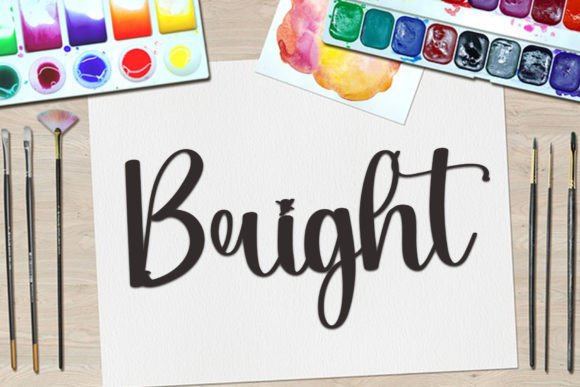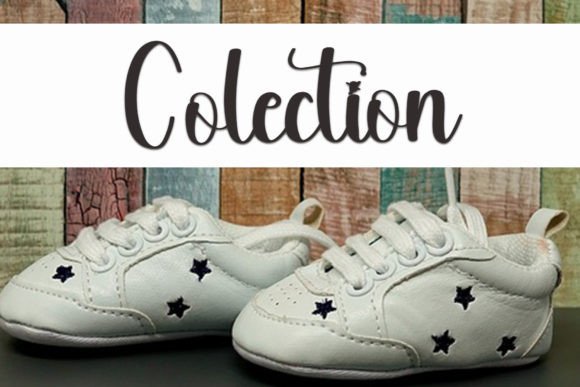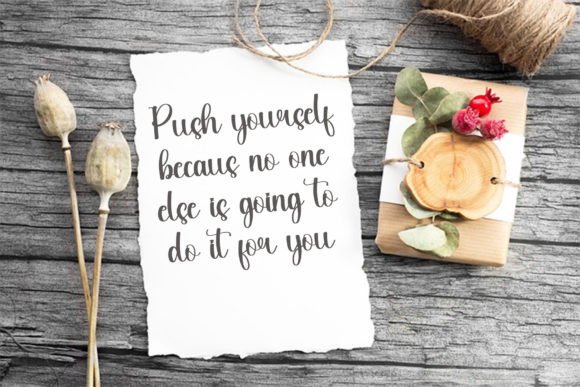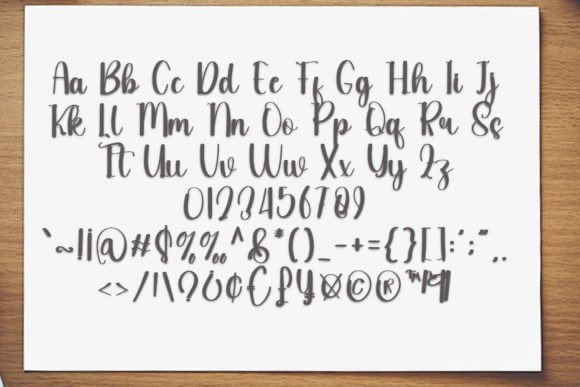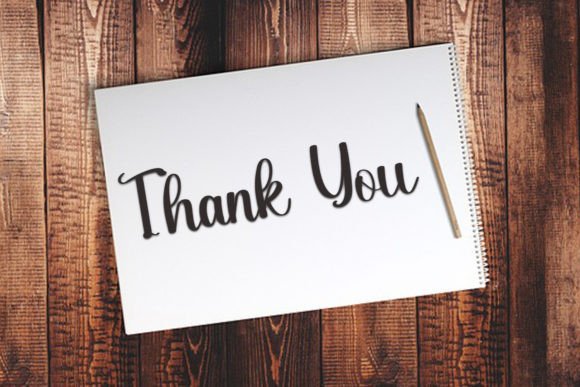
Discover the Elegance of Doubling Font: A Timeless Handwritten Style
Are you on the hunt for a font that adds a touch of elegance and sophistication to your designs? Look no further than the Doubling Font, a beautiful handwritten font that is sure to capture your heart. With its incredibly distinct and timeless style, Doubling is the perfect choice for designers and crafters looking to create spectacular designs that stand out from the crowd.
What is Doubling Font?
Doubling Font is a neat and beautiful handwritten font that is described by an elegant touch, making it perfect for your favorite projects. Its unique and classic style is sure to add a touch of sophistication to any design, whether you’re working on a logo, branding materials, or a craft project. With Doubling Font, you can create stunning designs that exude elegance and refinement.
Key Features of Doubling Font
So, what makes Doubling Font so special? Here are just a few of its key features:
- Elegant Touch: Doubling Font has an elegant touch that sets it apart from other handwritten fonts. Its smooth and flowing lines make it perfect for designs that require a touch of sophistication.
- Timeless Style: Unlike other fonts that may go out of style quickly, Doubling Font has a timeless style that will remain relevant for years to come. Its classic design ensures that your projects will look great now and in the future.
- Distinctive: Doubling Font has an incredibly distinct style that sets it apart from other fonts. Its unique design makes it perfect for designers and crafters looking to create designs that stand out from the crowd.
- Versatile: Doubling Font is a versatile font that can be used for a wide range of projects, from logos and branding materials to craft projects and more.
Why Choose Doubling Font?
So, why should you choose Doubling Font for your next project? Here are just a few reasons:
- Adds Elegance: Doubling Font adds a touch of elegance and sophistication to any design, making it perfect for projects that require a high-end look.
- Easy to Read: Despite its elegant style, Doubling Font is easy to read, making it perfect for designs that require a clear and concise message.
- Unique: Doubling Font is a unique font that will help your designs stand out from the crowd. Its distinctive style ensures that your projects will be noticed.
- High-Quality: Doubling Font is a high-quality font that is designed to deliver exceptional results. Its smooth lines and elegant style make it perfect for professional designs.
How to Use Doubling Font
- Pair with Other Fonts: Doubling Font pairs well with other fonts, making it easy to create stunning designs. Try pairing it with a sans-serif font for a contrasting look.
- Use for Headings: Doubling Font is perfect for headings and titles. Its elegant style makes it ideal for designs that require a touch of sophistication.